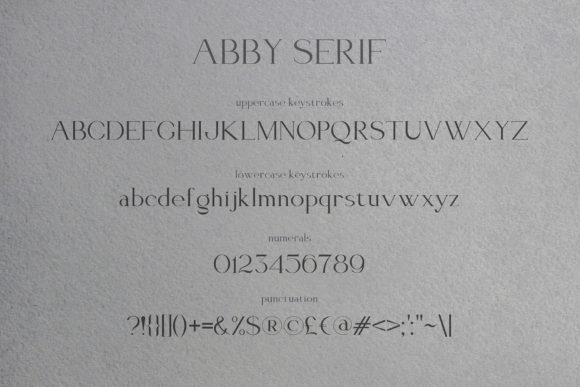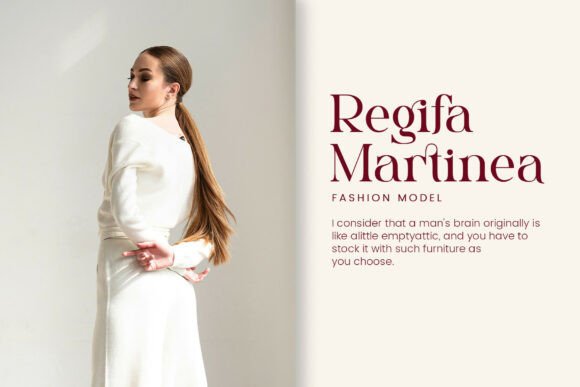
best 12 adobe serif fonts collection 2026
Choosing the right typography is often the most critical decision in my design process, as it sets the entire tone before a single word is even read. As we move into 2026, I’ve noticed a massive shift toward “Modern Retro” and “High-Contrast” aesthetics, where the goal is to balance timeless sophistication with a bit of experimental flair. Whether I’m working on a high-end fashion editorial in Adobe InDesign or crafting a minimalist logo in Illustrator, I’m constantly reaching for fonts that offer unique ligatures and a premium feel. In this post, I’ve curated the best 12 adobe serif fonts collection for 2026 to help you elevate your projects and stay ahead of the latest editorial and branding trends.
Balgind Modern Serif Font
As someone who spends hours scrolling through Adobe serif fonts looking for that “just right” balance of character and legibility, I’ve finally found a hidden gem that has completely shifted my workflow: Balgind. It’s a luxurious modern serif that feels like it was plucked straight from a high-end fashion spread. What really caught my eye are the elegant ligatures—they have this refined, feminine touch inspired by blooming florals and timeless sophistication. It’s that rare breed of typography that manages to be both contemporary and classic at the same time.
Whenever I’m working in programs like Photoshop or Illustrator, I find myself reaching for Balgind for premium branding projects. Its graceful curves and bold strokes create a commanding presence without feeling “heavy.” Whether I’m mocking up a wedding invitation or a lifestyle blog header, the flow of the letters feels incredibly harmonious. Plus, it’s super user-friendly; it includes PUA-encoded characters, so I can access all those stylish alternates even when I’m working quickly. If you’re looking to add a sense of poise to your toolkit, this is one serif you shouldn’t overlook.
Fresh Almond serif Font
When I’m scouring my library for the perfect Adobe serif fonts to anchor a new project, I usually have to choose between “strictly professional” and “fun.” However, I recently came across Fresh Almond, and it’s a total game-changer for my creative workflow. It’s crafted with incredible precision, offering sleek, elegant lines that exude high-end sophistication. But what really hooked me is the subtle “groovy” vibe woven into the letterforms. It’s that rare find that manages to look polished for a corporate logo while keeping a hint of playfulness for more experimental branding or web design.
In my experience, the secret to making this font truly shine is utilizing its OpenType features. Whenever I’m working in Adobe Illustrator or Photoshop, I make sure to pull up the Glyphs panel to explore all the variations—the balanced proportions and distinctive serifs look stunning across both print and digital mediums. Whether I’m designing a sleek editorial layout or a bold packaging concept, Fresh Almond provides a seamless flow that elevates the entire aesthetic. If you’re looking to inject some personality into your design toolkit without losing that professional edge, this is a serif you definitely need to try.
Gasley serif Font
Lately, I’ve been leaning heavily into the “less is more” aesthetic, and while I’m constantly testing different Adobe serif fonts, Gasley has quickly become a staple in my design arsenal. Inspired by those iconic, high-end minimalist logos we all know and love, this stylish ligature typeface is a dream for anyone working on branding or editorial templates. It has this incredible ability to look expensive and polished without trying too hard. Whether I’m mocking up a luxury brochure or a sleek advertising campaign, the clean lines of Gasley provide a level of sophistication that instantly elevates the entire layout.
What I appreciate most as a designer is how versatile it is across my favorite tools. It works beautifully in Adobe Illustrator, Photoshop, and InDesign, but the best part is that you don’t even need professional-grade software to make it look good. Because it’s PUA encoded and includes simple installations for both PC and Mac, you can access those gorgeous ligatures and international accents even in basic programs. If you are looking to refresh your collection of Adobe serif fonts with something that feels both modern and timeless, Gasley is a versatile workhorse that delivers a high-impact, premium feel every time.
Elegant Font Abby serif Font
Whenever I’m diving into a project that requires a bit of soul and history, I find myself looking through Adobe serif fonts for something that feels truly authentic. That’s how I stumbled upon Abby, and it’s been a revelation for my minimalist layouts. There is something so captivating about its design—it’s clearly inspired by ancient printed texts, giving it a weathered yet sophisticated vibe that looks incredible even when used entirely on its own. I love playing with the letter spacing and sizing to see how the character of the font shifts from a delicate whisper to a bold, commanding statement.
Buffy serif Font
One of the things I love most about working with Buffy in my personal projects is the sheer flexibility it offers through its OpenType features. I usually fire up Adobe Illustrator or Photoshop to take full advantage of the Glyphs panel—since the font is PUA encoded, it’s super easy to swap in different ligatures and variations to customize a logo or headline. It’s those tiny, unique details that turn a standard design into something premium. If you are looking to expand your library of Adobe serif fonts with a typeface that isn’t afraid to be bold and stylish, Buffy is definitely one to keep at the top of your list.
About Magic Florist serif Font
Lately, I’ve been obsessed with finding typefaces that feel organic yet expensive, and while browsing through various Adobe serif fonts, I finally gave Magic Florist a spin. It is an absolutely stunning elegant serif display font that brings a distinct touch of luxury to the screen. What I love about it is how it balances a sophisticated, stylish look with a welcoming vibe. I’ve found it fits perfectly across a huge range of my client work—from boutique branding and fashion labels to more unexpected industries like health and food research. The character set is beautifully managed, with kerning and spacing that honestly make my life so much easier during the layout process.